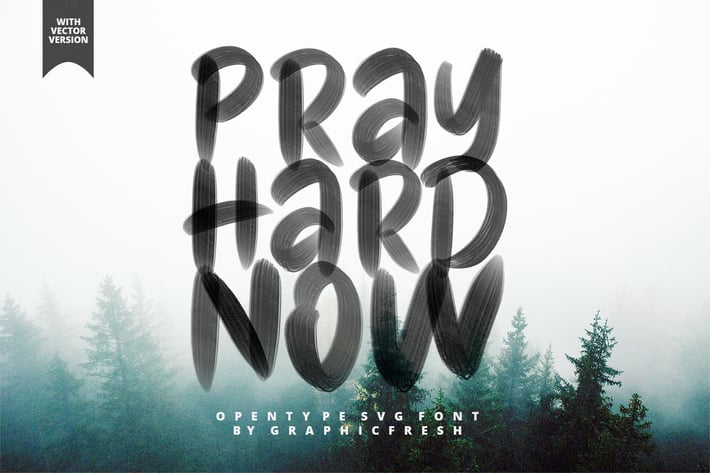
Pray Hard Now SVG Font
We again present an amazing font, namely "Pray Hard Now". Why do you have to pray? Because prayer is a power for successful people. We hope you will pray for success, as the name of this font. So, don't miss the opportunity to collect your best font.